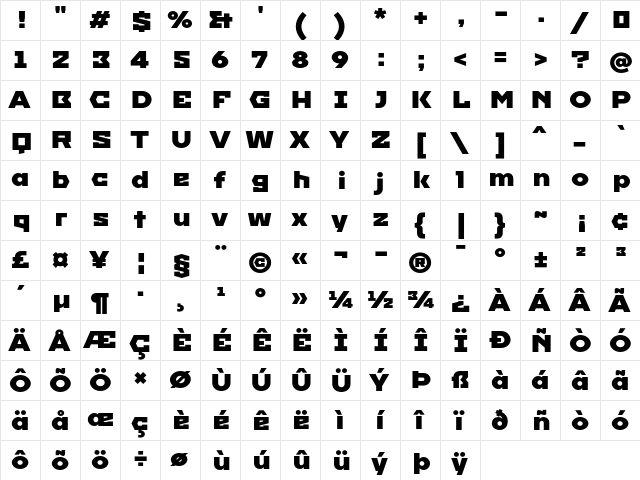
Imperial One Regular
| Designer | Jovanny Lemonad |
Design Context for Imperial One Typeface
Imperial One offers clean, dependable letterforms without strong stylistic allegiance, making it a practical choice for designers who need flexibility.